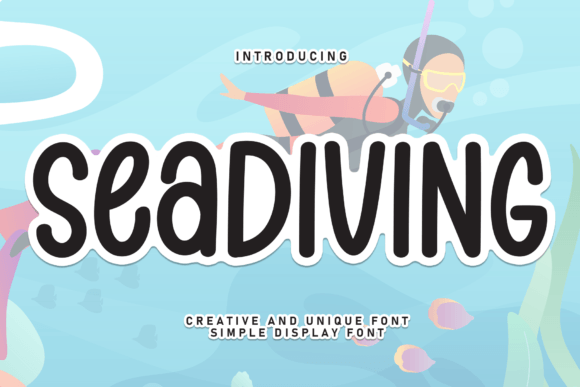
Dive into a sea of creativity with Seadiving Font, the epitome of charm and playfulness in the world of typography. This stunning handwritten display font is a delightful blend of sweet and friendly strokes, exuding a unique personality that captivates the hearts of designers and typography enthusiasts alike.
Seadiving Font is a masterpiece crafted by the renowned font designer, William Jhordey, who poured his passion and expertise into creating a font that radiates joy and warmth. Its cute and fun nature makes it the perfect choice for adding a touch of whimsy and charm to wedding invitations, greeting cards, posters, and any design that seeks a lighthearted and inviting vibe.
The beauty of Seadiving Font lies in its versatility. Whether you're a graphic designer seeking to create eye-catching logos or a creative entrepreneur crafting personalized invitations, this font has the power to transform your designs into works of art. Its adaptability extends to social media posts, captivating your audience with its charming presence.
But what truly sets Seadiving Font apart is its ability to evoke emotions. Its playful strokes and cheerful demeanor have the uncanny ability to connect with viewers on a deeper level. It's a font that speaks to the heart, leaving a lasting impression that lingers long after the design is viewed.
With Seadiving Font, you're not just downloading a font; you're embarking on a creative journey, where every letter becomes a brushstroke of pure delight. Experience the magic of Seadiving Font today and let your designs bloom with joy and enchantment!